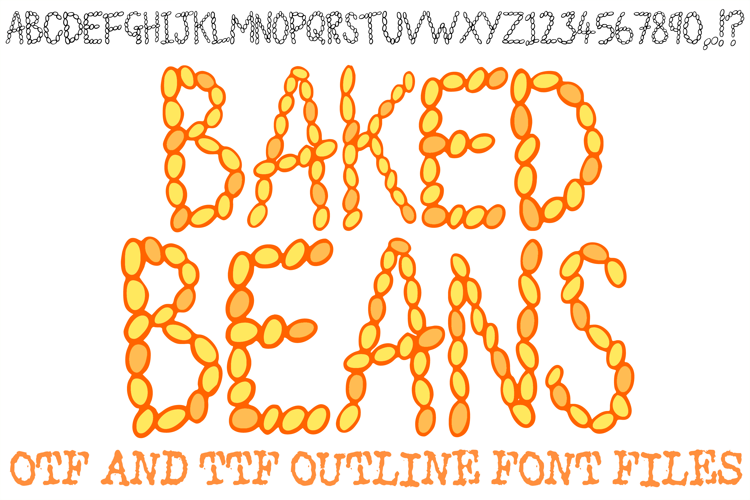
Baked Beans Font Doodle Lettering Cartoon ABC OTF
Bring a quirky, flavorful energy to your designs with the Baked Beans Font! This highly creative display typeface is constructed entirely from individual, hand-drawn bean shapes, giving each letter and number a fun, "saucy" texture. It is an ideal choice for food-themed branding, kitchen decor, BBQ party invitations, and any project that needs a humorous, high-impact look.
The organic, clustered shapes provide a unique 3D feel that stands out in both digital and physical crafts. Whether you're designing a menu for a local bistro, creating custom stickers, or working on playful children's apparel, the Baked Beans Font offers a professional yet artisan-crafted aesthetic that is truly one-of-a-kind.
Why Your Designs Will Stand Out:
Unique Bean-Cluster Design: Each character is intricately built from overlapping bean silhouettes for a textured, organic appearance.
Bold Display Style: The thick, chunky shapes ensure your headlines remain eye-catching and readable.